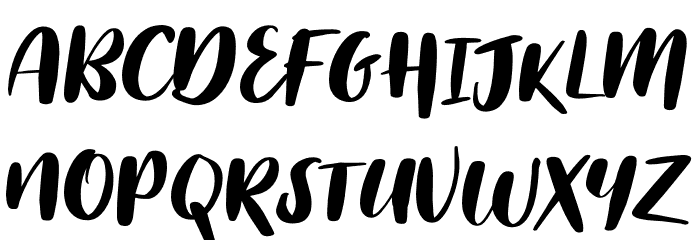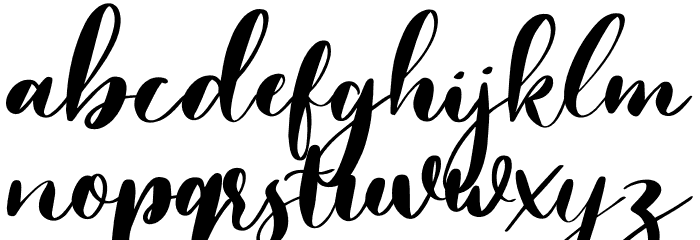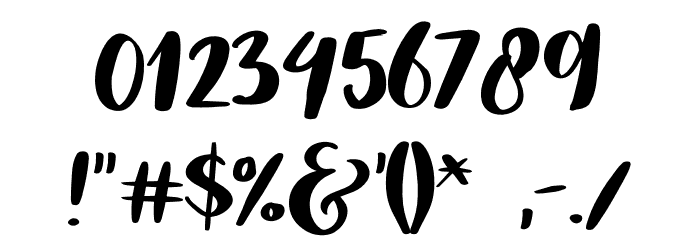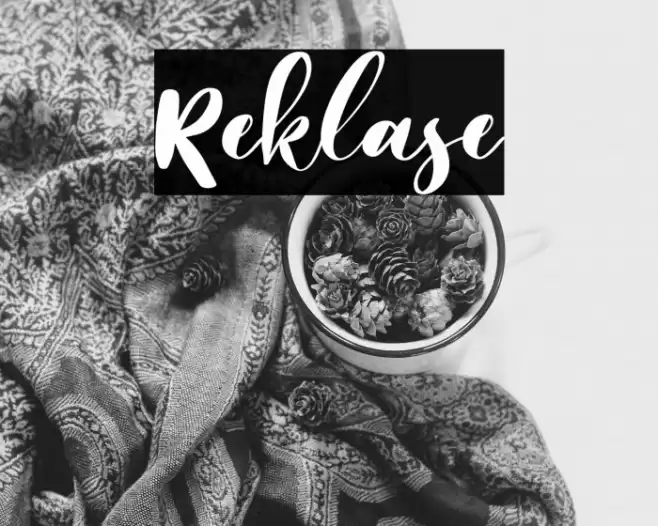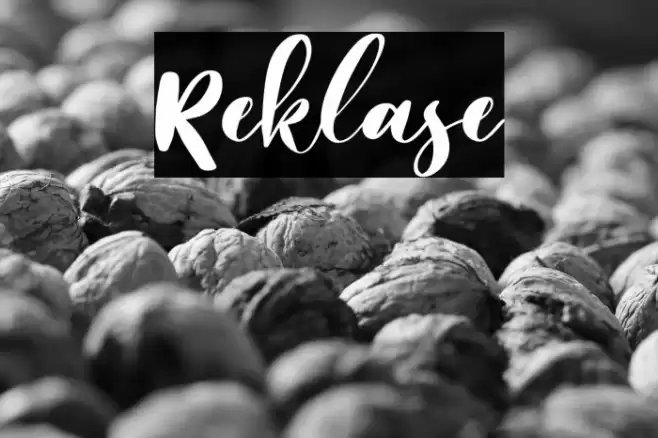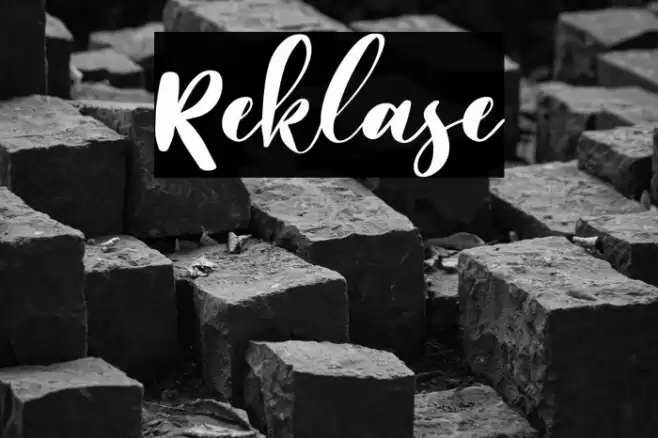
Reklase Font
This font features a bold, expressive script style with a modern flair. The characters are fluid and dynamic, with a brush-like appearance that adds a sense of movement and energy. The uppercase letters are bold and slightly condensed, while the lowercase letters maintain a consistent flow with elegant curves and loops. The numerals are distinct and maintain the same boldness as the letters, ensuring readability. Special characters are creatively integrated, matching the overall aesthetic of the font. This font is perfect for projects that require a personal touch or a sense of creativity and flair.
A bold, expressive script font with a modern, brush-like style.
- Proposed Projects: Ideal for branding, invitations, greeting cards, and creative posters.
- Use Case: Logos, Headlines, Creative projects